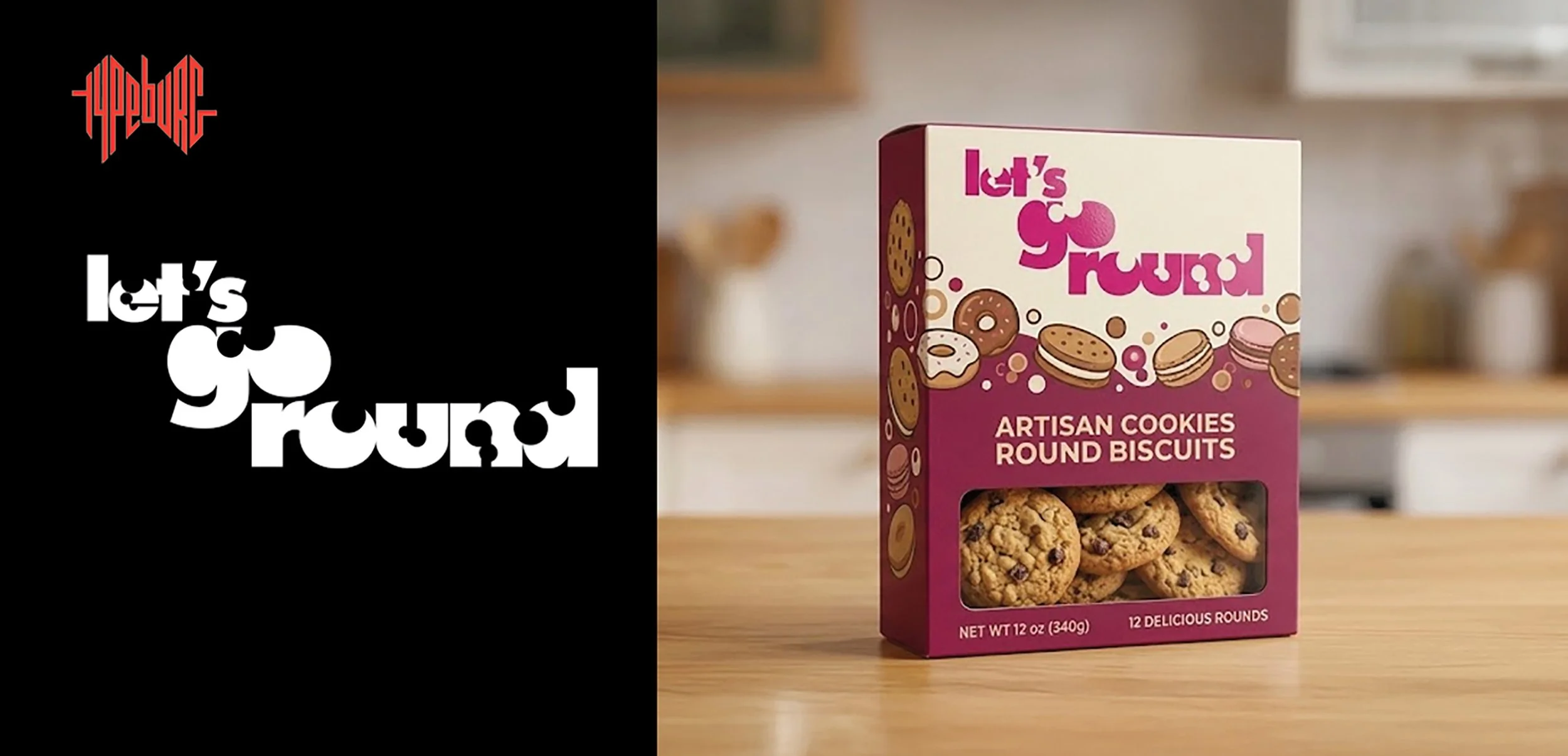
The key of how to work with typography?
Apply the same logic or reasoning that we use when we talk.
Kurt Schwitters was a true pioneer of avant-garde typography, pushing the boundaries of language and visual expression. His work on the "Ursonate" sound poem is a testament to his innovative spirit, but his typographic experiments went far beyond. Schwitters' "Merz" publications, a series of periodicals he founded and edited, showcased his bold and inventive use of typography, featuring eclectic layouts, fragmented texts, and unconventional fonts that blurred the lines between art and literature. His typographic work was characterized by a sense of playfulness, experimentation, and rebellion, influencing generations of artists, designers, and writers. By combining typography, collage, and sound, Schwitters expanded the possibilities of language and art, leaving a lasting legacy in the world of avant-garde art and design.
Hermann Zapf (1918-2015) was a German typographic mastermind whose elegant and versatile typefaces continue to shape the visual landscape of our world. With a career spanning over seven decades, Zapf left an indelible mark on the world of typography, creating iconic fonts like Palatino, Optima, and Zapfino that are still widely used today. His work was characterized by a unique blend of traditional craftsmanship and innovative design, reflecting his passion for calligraphy, typography, and the art of beautiful writing.
In the late 1980s and early 1990s, Zapf developed his ideas for the proprietary Hz-program (often referred to as the Hz-system), an innovative method for avoiding "rivers" of white space that can appear in justified text, specifically designed for digital typesetting. The program was developed in collaboration with the German font technology company URW and programmer Peter Karow. The Hz-program involved adjusting word and letter spacing, and character scaling, to create a more uniform and aesthetically pleasing text flow. This patented technology, which Zapf refined over the years, was later acquired by Adobe Systems and incorporated into their InDesign software, remaining a valuable tool for designers and typographers.
As a prolific writer, educator, and designer, Zapf's influence extends far beyond his own creations, inspiring generations of designers, typographers, and artists to push the boundaries of visual communication. His legacy is a testament to the power of typography to shape our cultural heritage and everyday lives.
THE VOLUME OF A VOICE
equals the size of type
You know how we naturally flow when we're chatting? We can bring that same logic to typography by using design elements that mimic the essence of conversation. It's all about making the text feel like a voice, not just dull words on a surface.
For example:
NEVER EVER DISTORT
THE SACRED PROPORTION OF A TYPE
The Maverick Typographer
Who Redefined Visual Communication
A true luminary in the world of graphic design, Herb Lubalin was a monumental influence on the industry of visual communication, particularly in typography. As one of the most consequential graphic designers of all time, he left an indelible mark on the field. Serving as the archetype of the modern type director, Lubalin's mastery of typographic structures was unmatched, and his influence remains visible in designs today. His work was characterized by an elegant sophistication, yet he was never afraid to take risks—he was a daring innovator, consistently pushing the boundaries of what type could achieve.
Lubalin's legendary collaboration with Ralph Ginzburg, the founder of Eros and Avant Garde magazines, perfectly showcased his groundbreaking approach to typography. This partnership produced iconic typefaces such as Avant Garde, a geometric sans-serif font that became synonymous with the aesthetic of the 1960s and 1970s, and Lubalin Graph, a bold, geometric slab-serif font. Avant Garde was especially notable for its inventive use of ligatures and diverse glyph designs, which injected the font with both elegance and creative whimsy. Lubalin's deep commitment to typographic experimentation was evident in the typeface's many alternate characters and revolutionary uses of tight kerning and precise leading.
Through his editorial work, particularly with U&lc (Upper & lower case), an influential international journal of type and graphic design that he co-founded in 1973, Lubalin's designs became the definitive benchmark for modern typography. He served as the journal's founding designer and editorial art director until his death in 1981, transforming U&lc into the premier platform for experimental and expressive typography. His distinctive use of bold typography, innovative layouts, and provocative imagery challenged the conventions of print design. Lubalin’s genius lay in his singular ability to distill complex concepts into simple, yet powerful, visual statements. His body of work demonstrated the profound ability of typography to communicate, persuade, and inspire.
A true original, Herb Lubalin’s legacy continues to fuel designers, serving as a powerful reminder that great design demands creativity, courage, and a willingness to break the established rules. Through his work, Lubalin proved that typography is not merely about arranging words, but about crafting an experience. His designs continue to influence and inspire new generations of creative professionals, cementing his place as one of the greatest typographers in history.